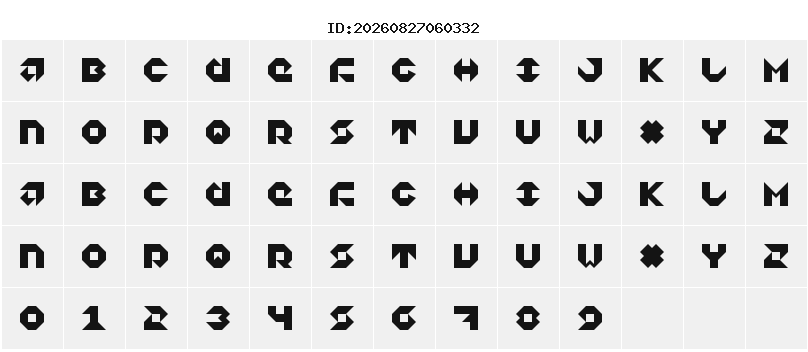
• Font Name: 5Dagger Unicase
• Designer: Noah - 10 year old typomaniac
• Description: ‚Äú5Dagger Unicase‚Äù was built with FontStruct
5Dagger Unicase.ttf is a modern, elegant sans-serif font designed for ultimate readability and visual harmony. Perfect for branding, headlines, web design, and print materials.